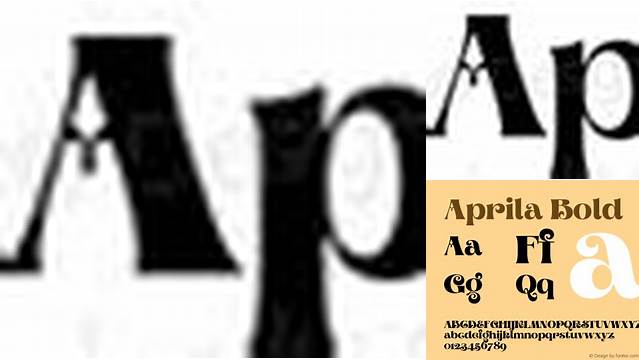
Aprila Bold: Free Font Download Guide
Hey guys! Ever stumbled upon a font that just clicks? That's Aprila Bold for me. It's got this amazing blend of modern and classic that makes it super versatile. Whether you're designing a sleek logo, crafting an engaging website, or putting together a standout presentation, Aprila Bold can seriously elevate your work. And the best part? You can often find it for free! Let's dive into where you can snag Aprila Bold without spending a dime and how to make the most of it.
What Makes Aprila Bold So Special?
Aprila Bold font isn't just another typeface; it's a statement. Its strong, confident lines and balanced letterforms give it a commanding presence. It's legible and visually appealing, making it ideal for headlines, branding, and even body text in certain contexts. The bold weight adds a punch, ensuring your message gets noticed. Many designers appreciate its clean aesthetic and the way it can be adapted to fit various design styles, from minimalist to more elaborate projects. Basically, it's a workhorse font that looks great in almost any situation. The reason many designers love Aprila Bold is because of its strong presence and legibility. Whether it's for website design, logos, or marketing materials, it adds a touch of professionalism and elegance. Plus, it's surprisingly versatile; it works well in both digital and print formats. Seriously, give it a try, and you'll see what all the fuss is about.
Using Aprila Bold in Graphic Design Projects
Aprila Bold shines in various graphic design applications. Its boldness makes it perfect for headlines and titles, grabbing attention and conveying a sense of authority. Consider using it in posters, flyers, and social media graphics where you need a font that stands out. It also works well for logos, especially when you want to project a strong and modern brand image. Experiment with different sizes and weights to see how Aprila Bold can adapt to your specific needs. In web design, use Aprila Bold sparingly for headings to maintain readability and avoid overwhelming the user. Combine it with a simpler, more neutral font for body text to create a balanced and professional look. Remember, typography is a crucial element of design, and choosing the right font can significantly impact the overall message and aesthetic of your project. So, take your time, play around with different options, and see how Aprila Bold can elevate your designs.
Aprila Bold for Branding and Logo Design
When it comes to branding, the Aprila Bold font can be a game-changer. Its strong and contemporary appearance makes it a great choice for creating logos that exude confidence and professionalism. Think about using it for brands that want to project a modern and reliable image. Its clear legibility also ensures that your brand name remains easily readable, even at smaller sizes. In logo design, pair Aprila Bold with complementary fonts to add depth and visual interest. A lighter sans-serif or a classic serif font can create a nice contrast, making your logo more dynamic and memorable. Experiment with different color schemes to see how Aprila Bold interacts with your brand's palette. A bold color combined with the font can create a powerful visual impact, while a more subtle color can convey a sense of sophistication. Remember, your logo is the face of your brand, so choosing the right font like Aprila Bold can make all the difference in how your brand is perceived. This is why the font choice is so important for branding and logo design.
Aprila Bold in Web Design: Tips and Tricks
In the world of web design, Aprila Bold font can add a touch of elegance and modernity to your site. However, it's essential to use it strategically to avoid overwhelming your visitors. A great way to use Aprila Bold is for headings and subheadings, where its boldness can effectively draw attention to key sections of your content. Make sure to optimize the font for web use by using CSS to control its size, weight, and letter spacing. This ensures that the font renders correctly across different browsers and devices. When choosing a body font to pair with Aprila Bold, opt for something that is easy to read and doesn't compete for attention. A clean sans-serif font like Open Sans or Lato can be a good choice. Also, consider using Aprila Bold for calls to action buttons to make them stand out and encourage users to click. By carefully integrating Aprila Bold into your web design, you can create a visually appealing and user-friendly experience. Remember that user experience is important here! This is why finding the right balance is important.
Combining Aprila Bold with Other Fonts
One of the keys to using Aprila Bold effectively is knowing how to combine it with other fonts. The right pairing can elevate your design and create a cohesive look. For a classic and sophisticated feel, try pairing Aprila Bold with a serif font like Times New Roman or Garamond. This combination works well for designs that need a touch of elegance and tradition. If you're aiming for a more modern and minimalist look, pair Aprila Bold with a clean sans-serif font like Helvetica or Arial. This combination is great for websites, logos, and branding materials that need to convey a sense of simplicity and clarity. Experiment with different font weights and sizes to create contrast and visual interest. Using a lighter weight font for body text can make the Aprila Bold headlines stand out even more. Don't be afraid to mix and match fonts to find the perfect combination for your project. The goal is to create a harmonious balance that enhances the overall design. This is why font pairing is so important.